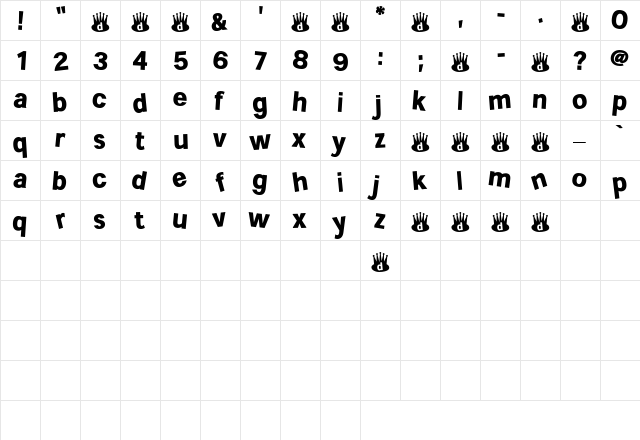
Stratocaster Regular
Design Context for Stratocaster Typeface
Stratocaster is a composed and adaptable typeface that performs quietly and consistently across a wide range of design contexts.